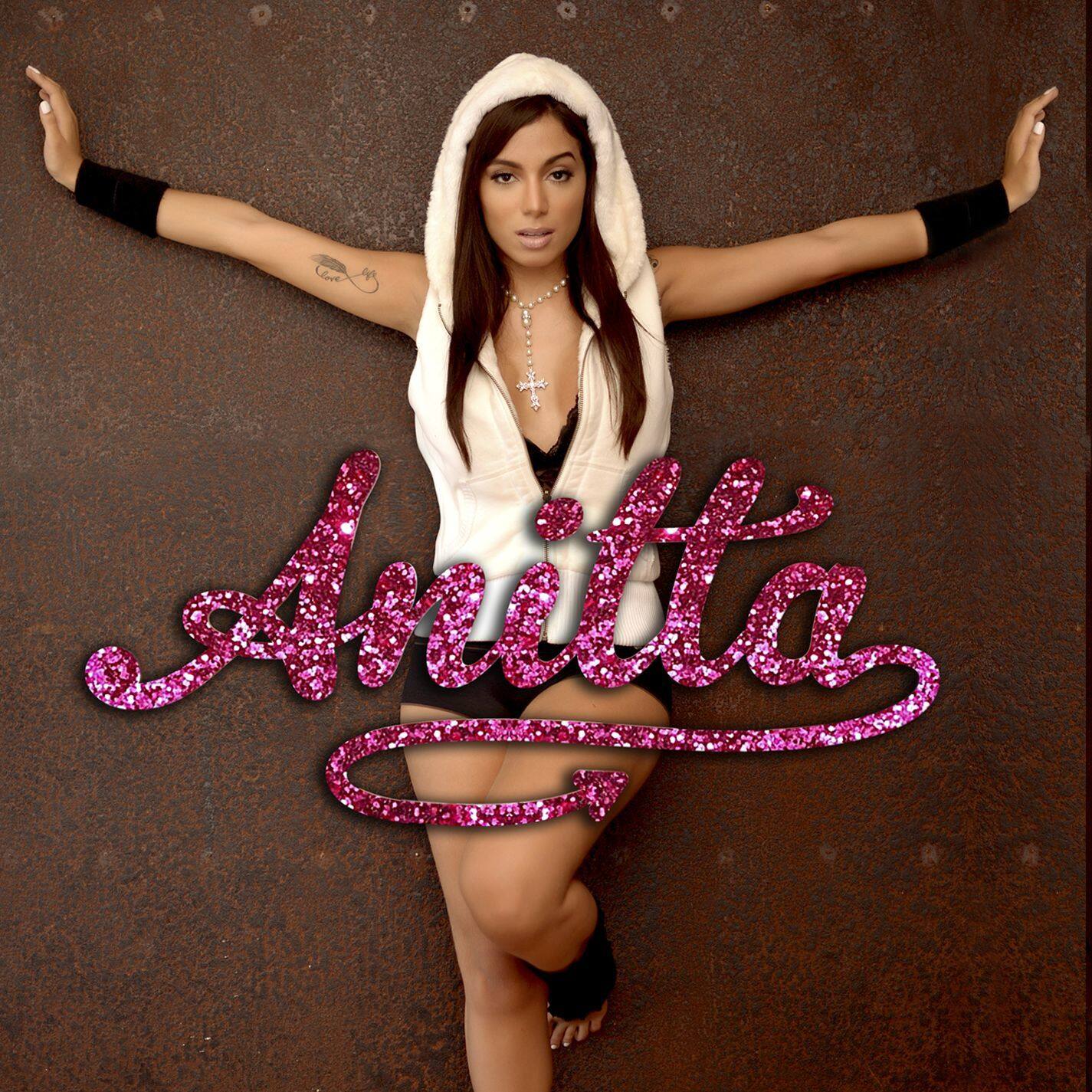
Anitta (album) Font
Fonts in UseAnitta is the eponymous debut studio album by Brazilian singer Anitta, released in 2013. The album features a blend of pop, funk, and R&B influences, with hit singles including "Show das Poderosas" and "Meiga e Abusada."
Gelato Script, a typeface designed by Dave Rowland, is showcased in the cover art. The typeface seamlessly blends formal scripts and mid-20th century hand lettering for a familiar feel.
Gelato Luxe and Gelato Fresco are two revised versions of Gelato Script.